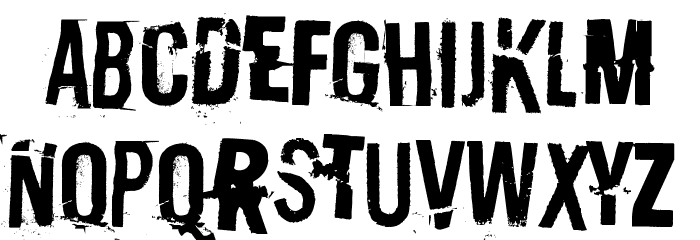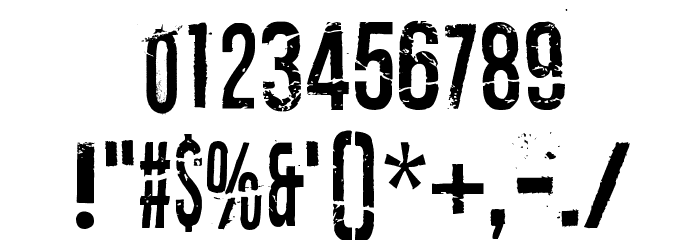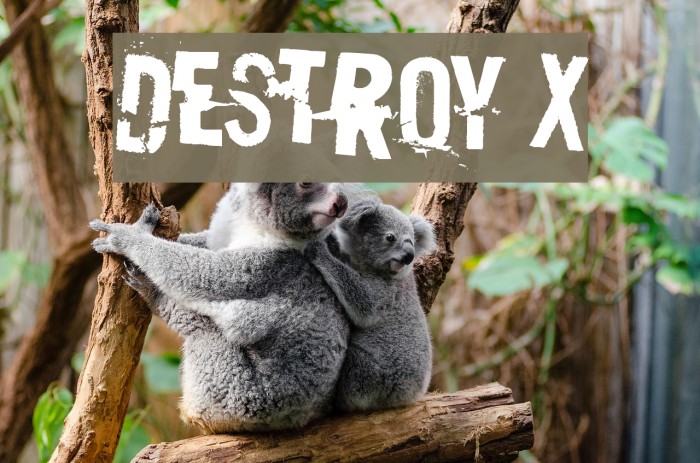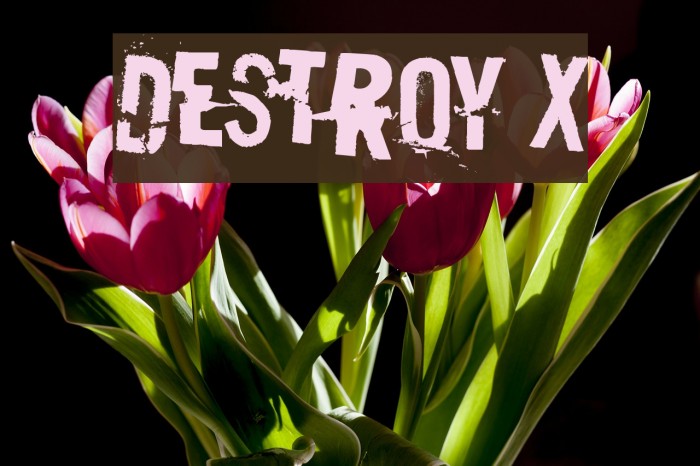
Destroy X Font
This font exhibits a rugged, distressed style reminiscent of worn-out stencils or graffiti. The characters are bold and uppercase, with a rough texture that gives them a gritty, urban feel. The edges are irregular and appear as if they have been eroded or splattered with paint, adding to the chaotic and edgy aesthetic. This font is designed to stand out and make a statement, perfect for projects that require a rebellious or industrial vibe. The numerals and special characters maintain the same distressed look, ensuring consistency across all text elements.
A bold, distressed font with a gritty, urban aesthetic.
- Proposed Projects: Ideal for street art designs, music album covers, event posters, or any project needing an edgy, rebellious look.
- Overall Style: Urban, Edgy, Distressed